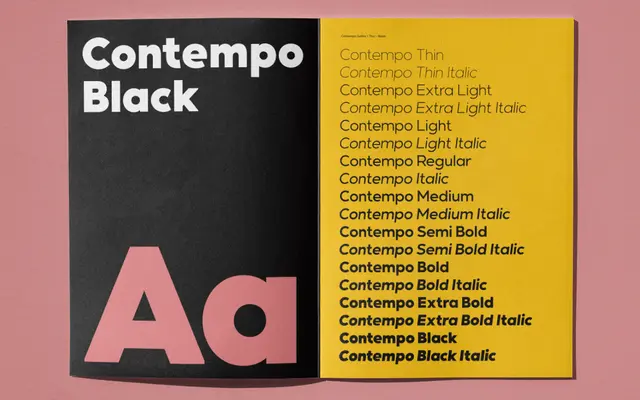
Contempo Gothic
A geometric sans serif in nine weights with matching italics, built for display use with broad Latin language coverage and OpenType features including stylistic sets, tabular figures and arrows.
Eighteen styles span nine weights from ExtraLight to Black, each with a matching italic, covering a wide range of Latin Extended characters including diacritics for Central and Eastern European languages. OpenType features include three stylistic sets that offer alternate forms for i, l and t, plus tabular figures, standard ligatures and fractions. Suited to graphic design, signage, editorial and corporate identity work.
The foundry describes a geometric approach to a modern sans serif, with clean construction typical of geometric grotesques suited to display and editorial use.